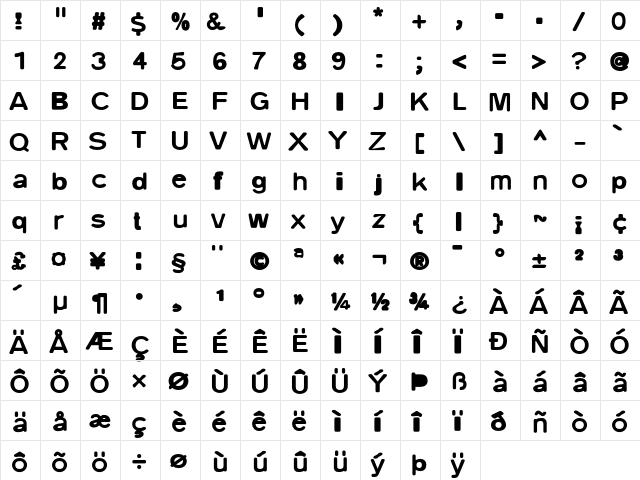
Dirty OneBold
Design Context for Dirty Typeface
Dirty is a composed and adaptable typeface that performs quietly and consistently across a wide range of design contexts. Its bold stroke weight gives it real presence on the page.
Pro Tip: Use Dirty in both headline and body roles to test its range before committing to a single application.